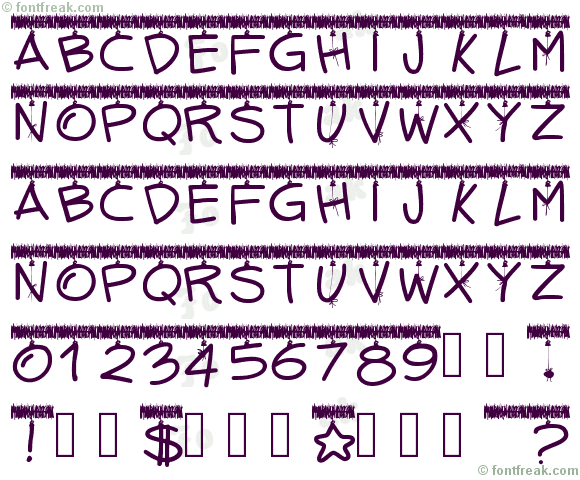
PWTinselLetters
About PWTinselLetters
PWTinselLetters is a distinctive decorative font designed by Peax Webdesign, perfect for projects that require a playful and whimsical touch. This font falls into the decorative category, characterized by its unique, textured appearance that gives the impression of being hand-drawn. The strokes are irregular and uneven, adding to the charm and authenticity of the typeface, while maintaining a legible structure. The spacing is thoughtfully designed, ensuring that each letter stands out without overwhelming the viewer.
This font is ideal for a variety of creative applications. It shines in contexts such as festive invitations, where its playful nature can evoke joy and excitement. Additionally, it works beautifully for children’s book covers, capturing the essence of fun storytelling. Restaurant menus that aim for a casual and inviting atmosphere can also benefit from the engaging personality of PWTinselLetters. Moreover, it can serve as an eye-catching headline font for social media posts, making it appealing to content creators looking to enhance their visual branding.
The target audience for PWTinselLetters includes graphic designers, small business owners, and content creators who seek to add a unique flair to their projects. The font's ability to convey a sense of creativity and playfulness makes it an excellent choice for anyone aiming to attract attention and engage their audience.
What sets PWTinselLetters apart is its ability to blend whimsy with readability, making it a versatile choice for a range of design needs. The PWTinselLetters font free download allows users to incorporate this enchanting typeface into their work easily, ensuring that their projects will stand out in a crowded visual landscape. Whether you're crafting invitations or designing eye-catching graphics, PWTinselLetters is sure to leave a lasting impression.